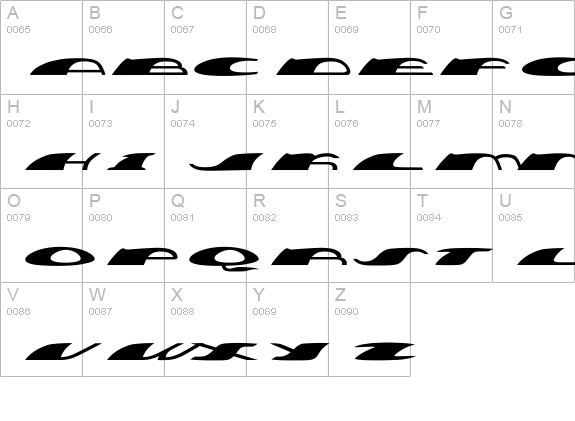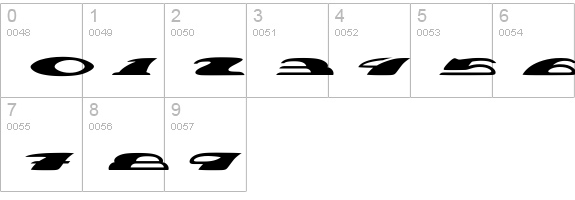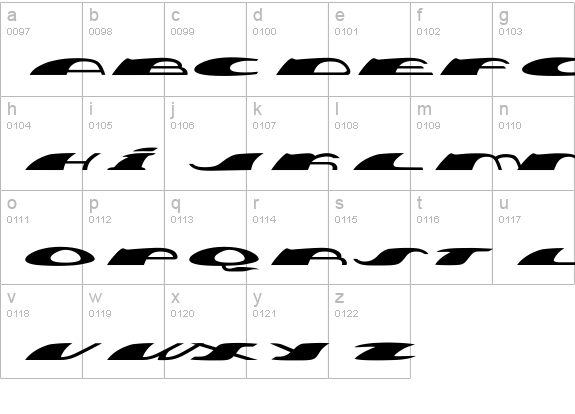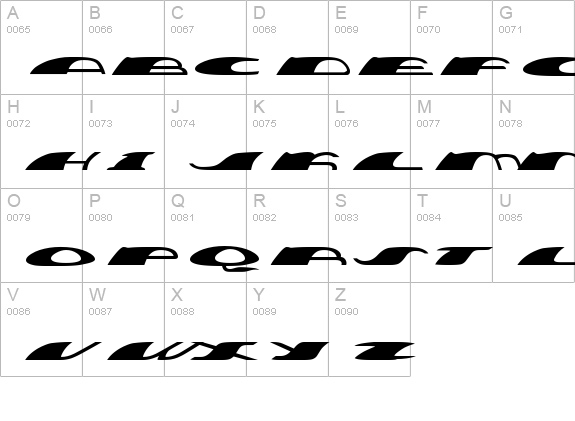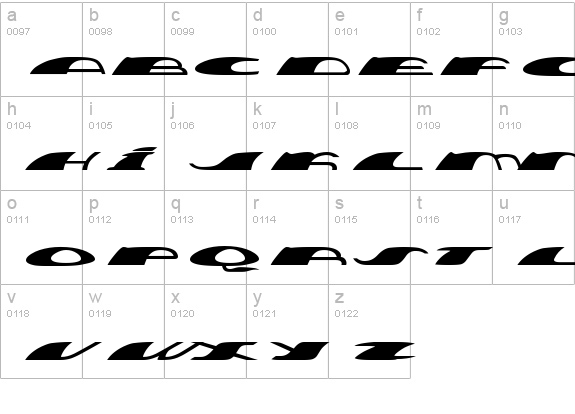
Cove Font Details
Introducing Cove font, a modern and elegant typeface that exudes sophistication and style. With its clean lines and smooth curves, Cove font is perfect for a wide range of design projects, from branding to packaging to web design. This versatile font can add a touch of class to any project, making it stand out from the rest. What's even better is that Cove font is available for free download at FontsMarket.com. That's right, you can get your hands on this stunning font without having to spend a dime. So why wait? Elevate your designs with Cove font today and see the difference it can make. Download it now and start creating beautiful and impactful designs with this amazing font.